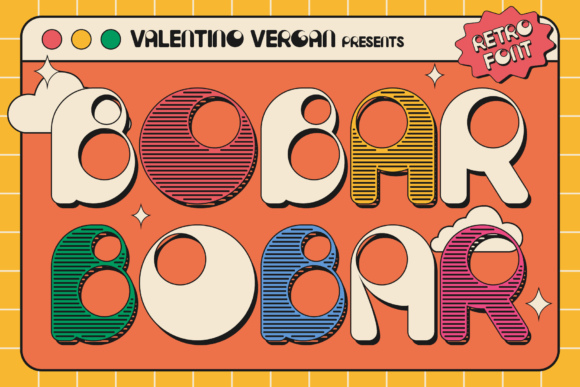
The Retro Revival: Discovering the Bobar Font
I still remember the design project that led me to discover the Bobar font. I was working on a branding campaign for a trendy new coffee shop, and I needed a font that would capture the essence of the 70s – think bold, playful, and eye-catching. After hours of scouring through font libraries, I stumbled upon Bobar, and it was love at first sight! ✨ In this article, I’ll share my experience with this amazing retro-inspired variable font and explore its features, uses, and alternatives.
First Impressions: A Review of Bobar Font
- ✅ Unique and eye-catching design: Bobar’s groovy design and bold chunky shape make it perfect for retro-themed projects.
- ✅ Variable font capabilities: The variable version allows you to manually adjust the slant, giving you more creative control.
- ✅ Creative alternate and engraved characters: Bobar comes with a range of alternate characters, making it ideal for a wide range of projects, from branding to product packaging.
- ✅ Standalone and variable versions: Bobar offers both standalone fonts and a variable version, making it versatile for different design needs.
While Bobar is an amazing font, there are a few things to keep in mind: 🤔
- ⚠️ Limited use in formal contexts: Bobar’s playful design may not be suitable for formal or professional projects that require a more traditional look.
- ⚠️ Requires OpenType support: To access Bobar’s advanced features, such as glyphs and stylistic alternates, you’ll need to use a design platform that supports OpenType.
Bobar font was inspired by the retro designs of the 1970s. The designer aimed to create a font that would capture the essence of that era – think bold, playful, and eye-catching. The result is a font that’s perfect for creative projects that require a touch of nostalgia and fun.
Q: What is a variable font?
A variable font is a type of font that allows you to adjust certain characteristics, such as slant or weight, to create a unique look.
Q: Does Bobar font support OpenType features?
Yes, Bobar font supports OpenType features, including glyphs and stylistic alternates. This allows you to access a range of creative options to customize your text.